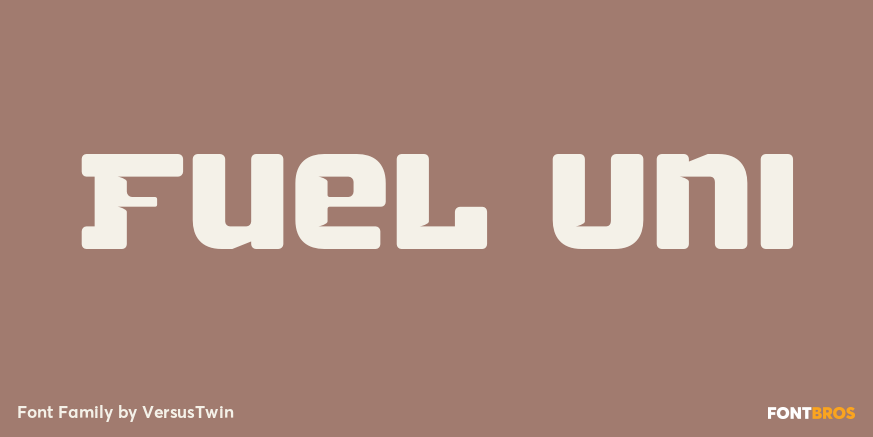
Fuel Uni
About Fuel Uni
The Fuel Uni typefaces are a modern update on the techno sans, adding further versatility with unicase design complete with soft rounded corners as well as decorative inktraps. Stylistic Alternates included within all styles are alternates for the capital…